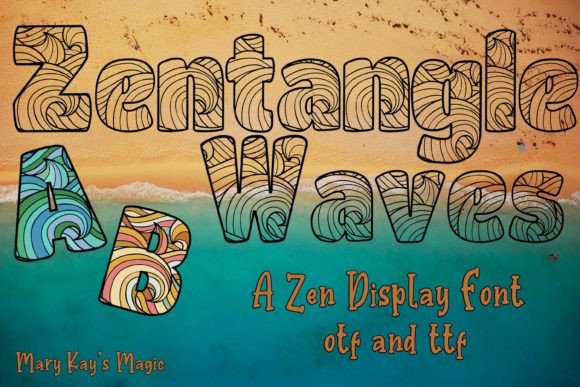
Journey to the depths of creativity with Zentangle Waves, a display font that dances like a symphony of waves. Its enchanting shapes and captivating curves will transform your designs into a mesmerizing spectacle that demands attention. Say goodbye to ordinary fonts and embrace the extraordinary with Zentangle Waves.
Dive into a world of endless possibilities, where every letter is a stroke of genius. From logos that command presence to headlines that captivate, Zentangle Waves is your passport to design excellence. Its unique style and enchanting aura will leave a lasting mark on your audience, inspiring them and leaving them craving more.
Unleash your imagination and explore the boundless potential of Zentangle Waves. Whether you're a seasoned designer or just starting your creative journey, this font is your key to unlocking a world of beauty and originality. Let your designs radiate with the captivating charm and elegance of Zentangle Waves.